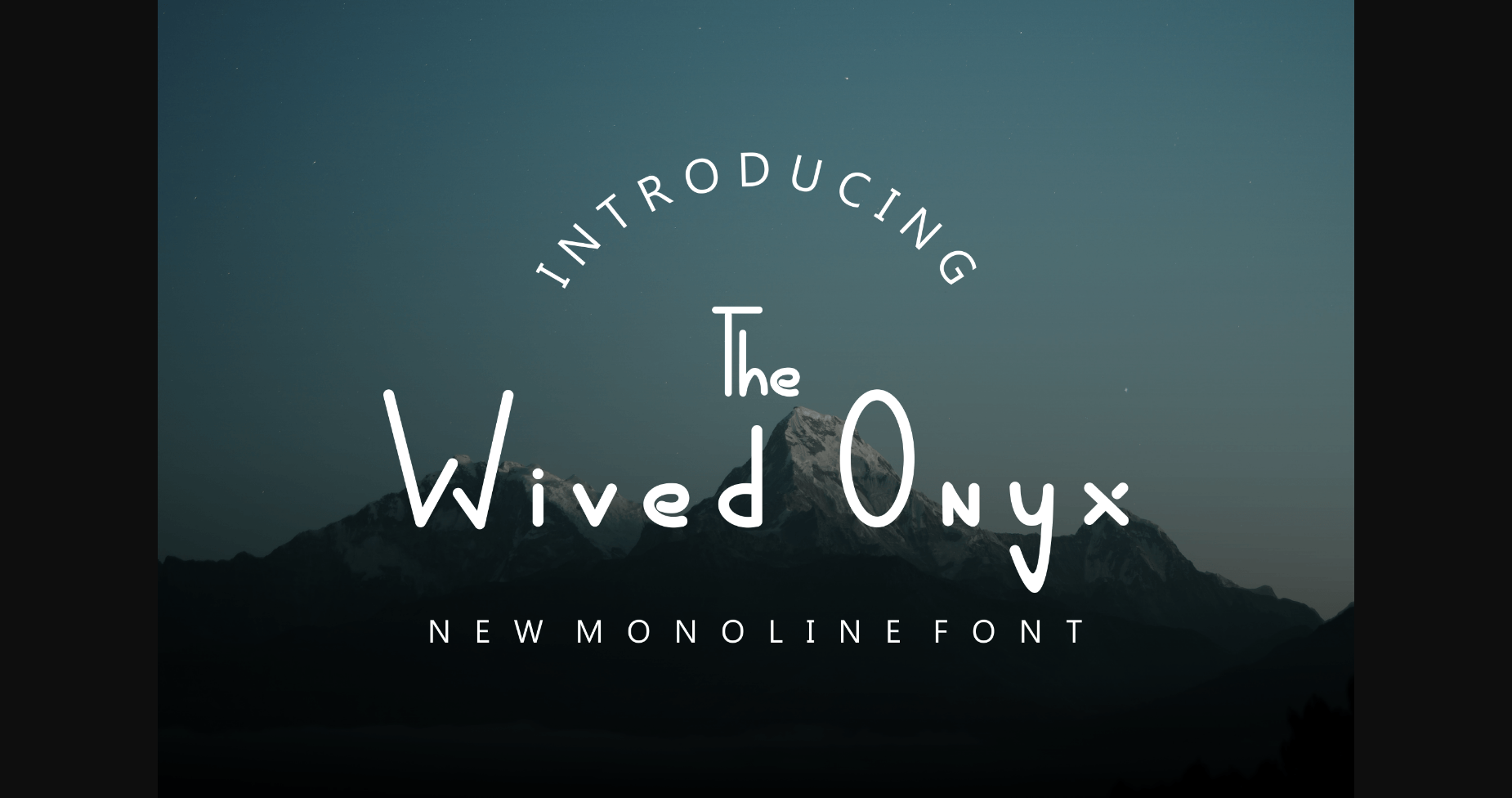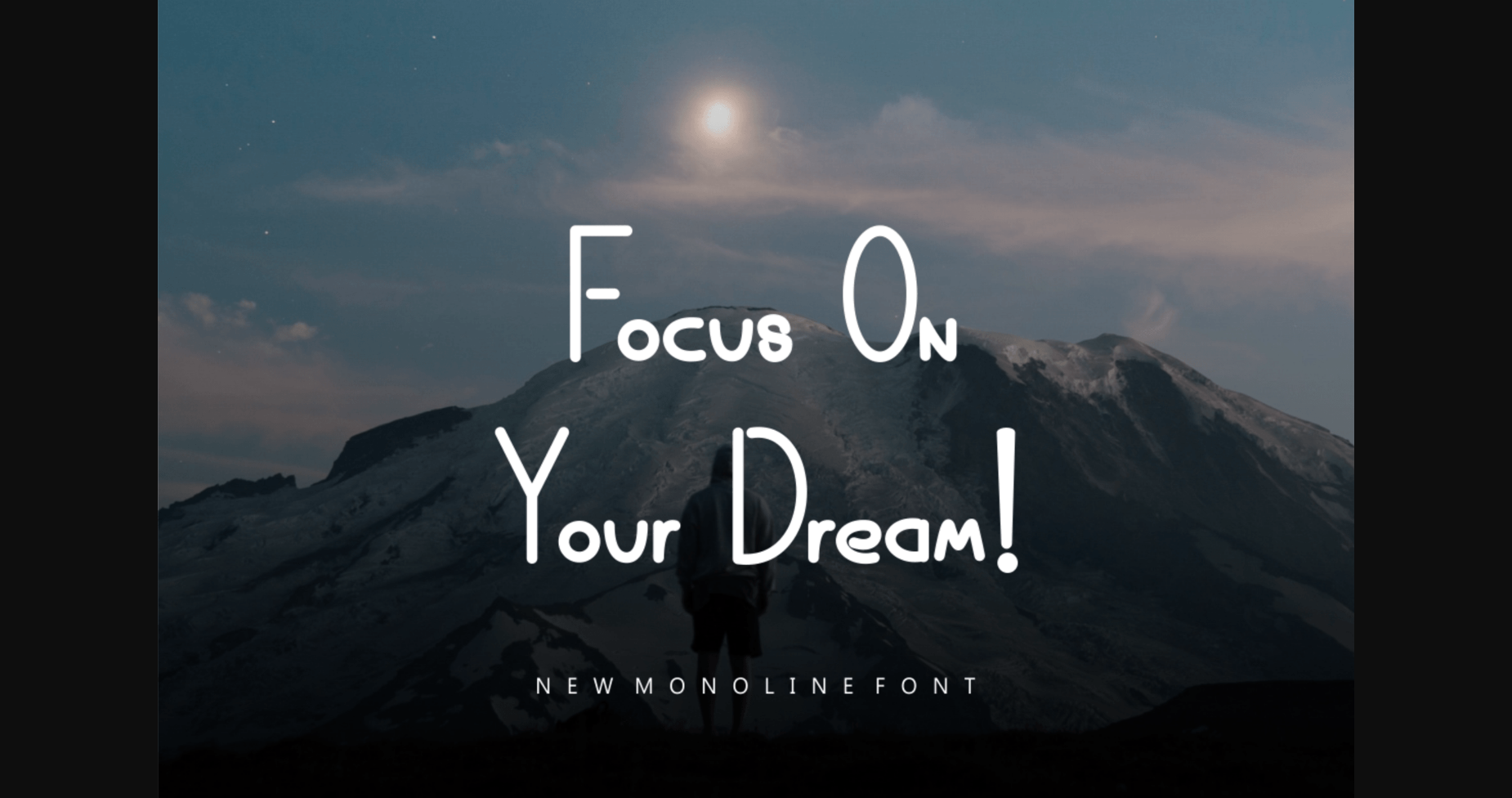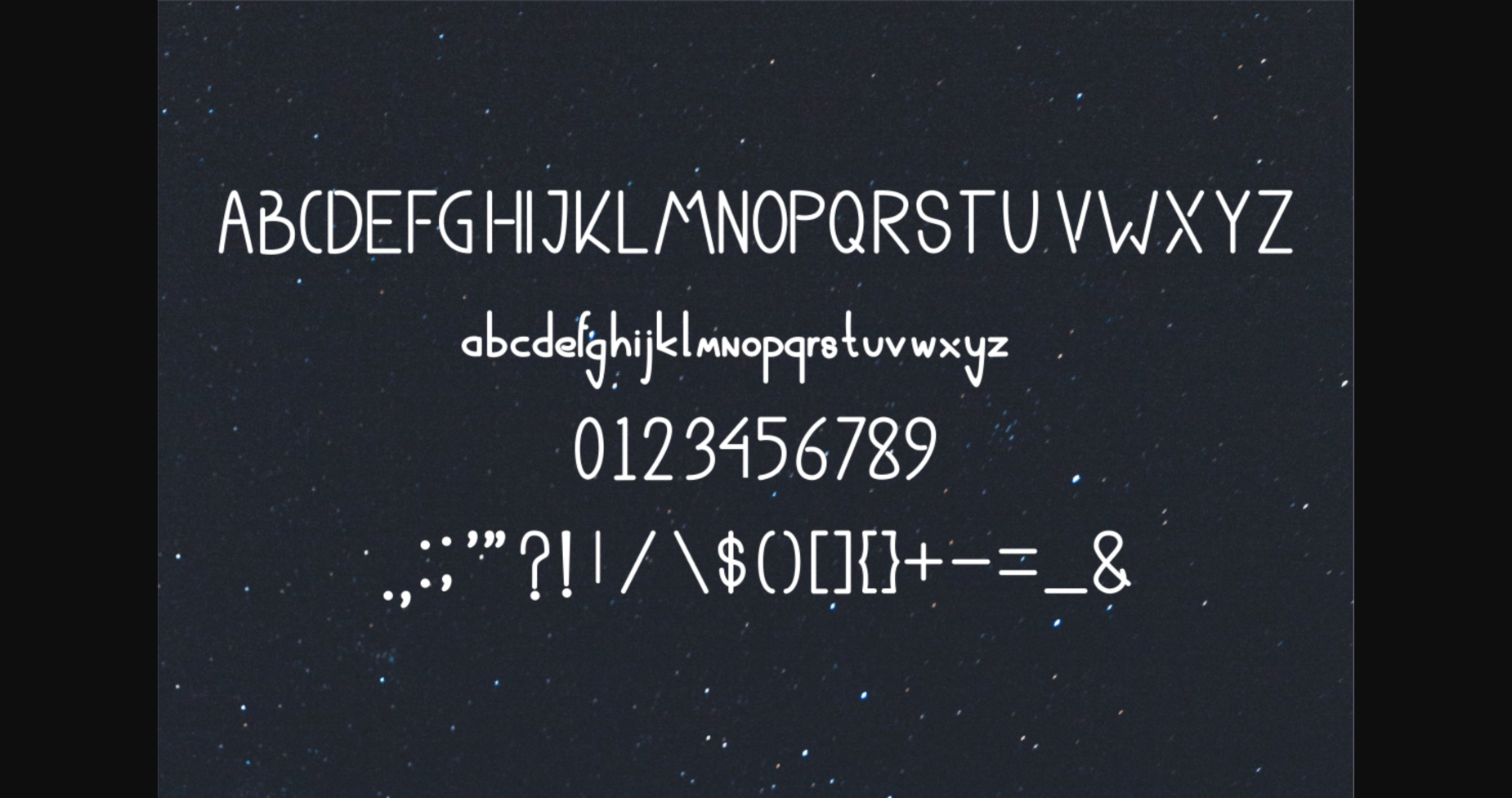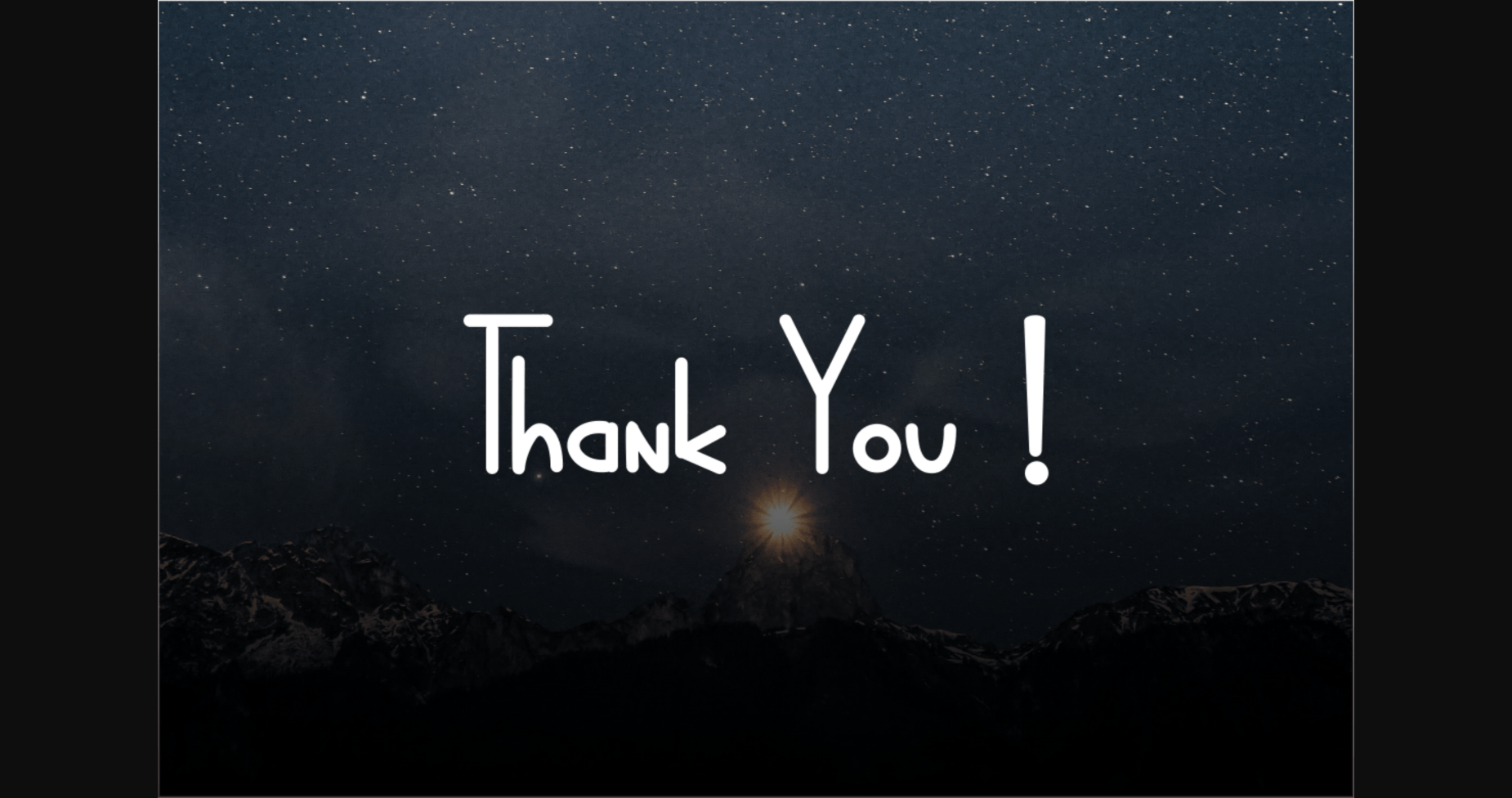
Wived Onyx is a modern and friendly sans serif font. No matter the topic, this font will be an incredible asset to your fonts’ library, as it has the potential to elevate any creation.